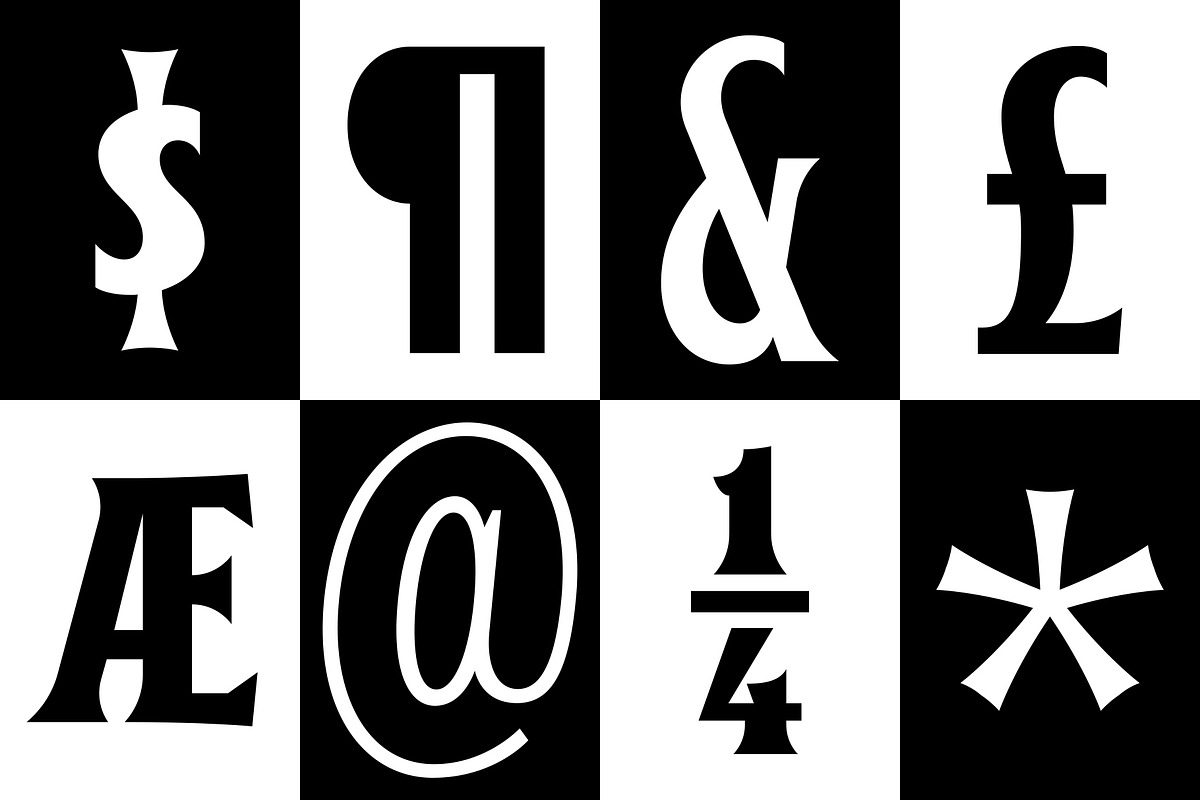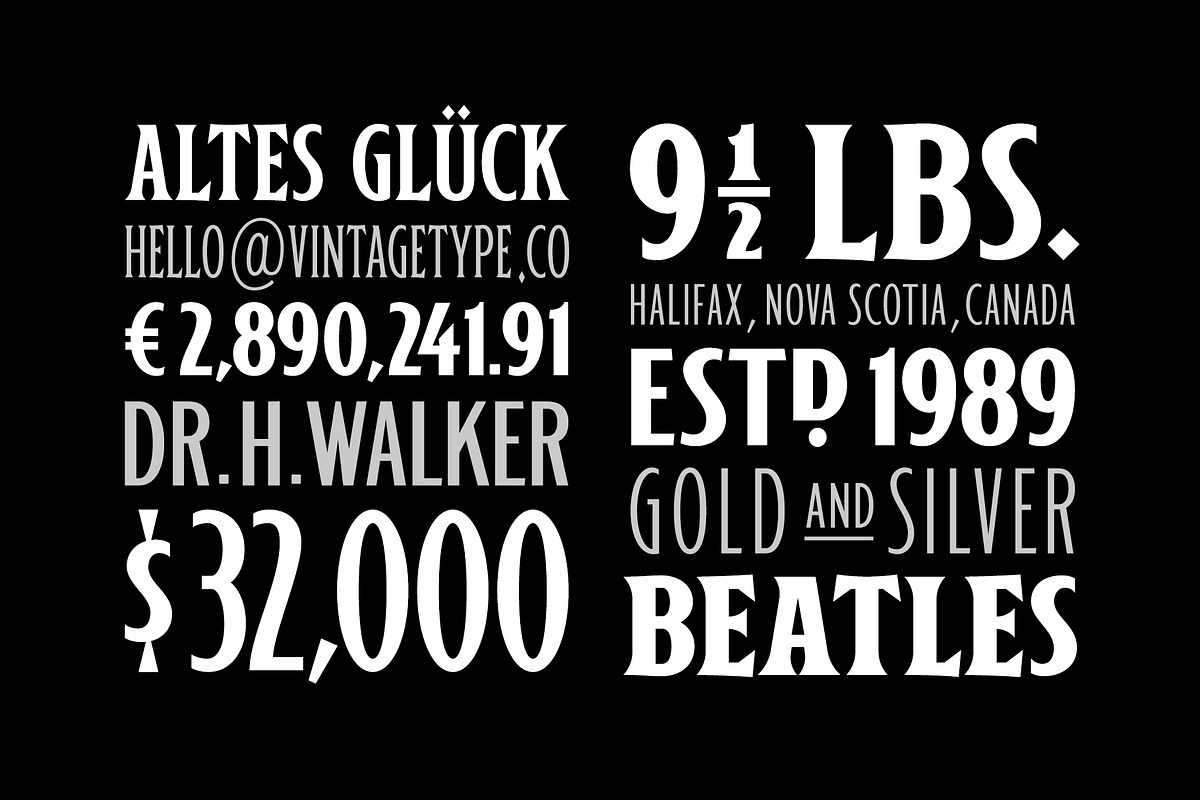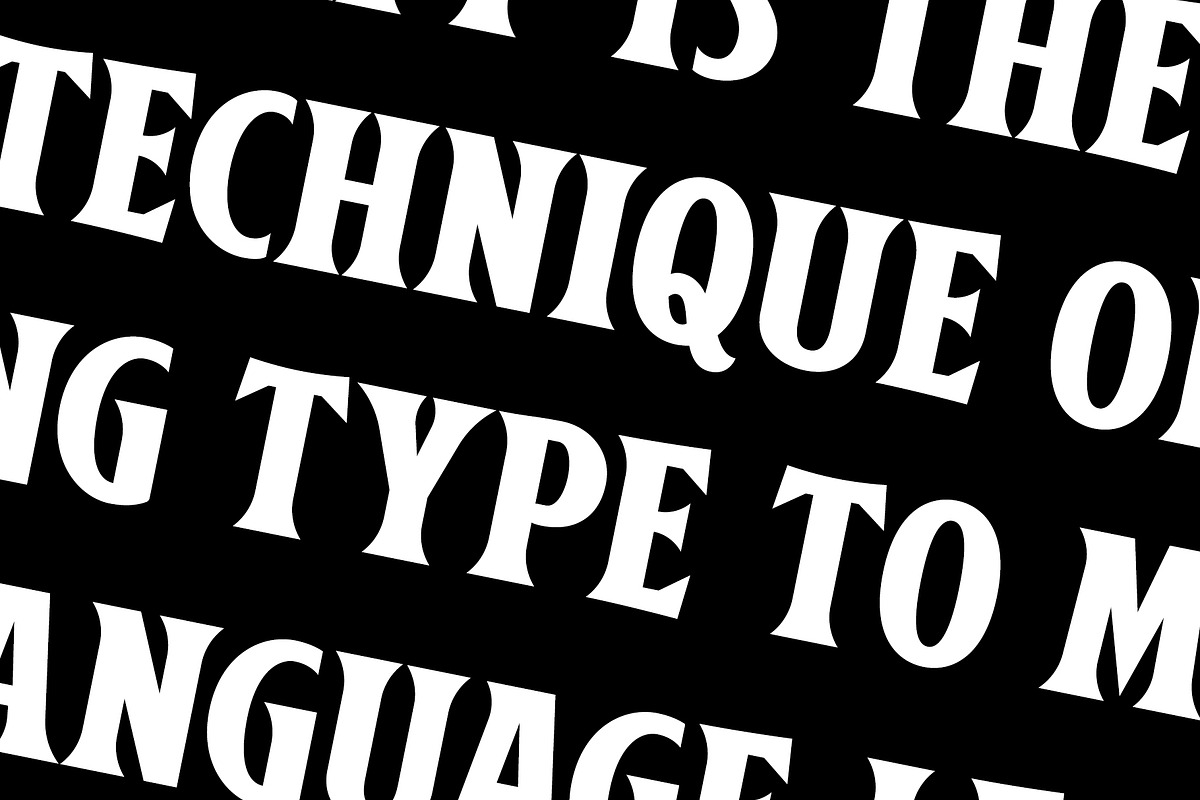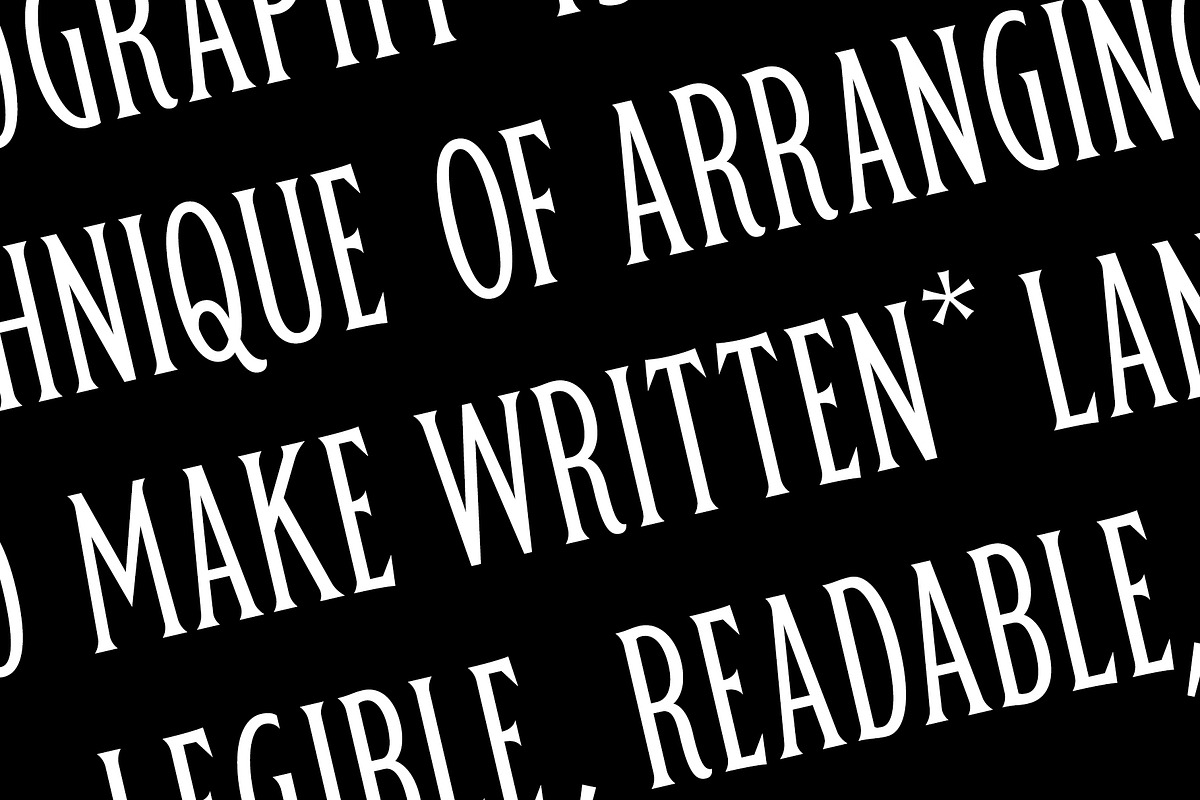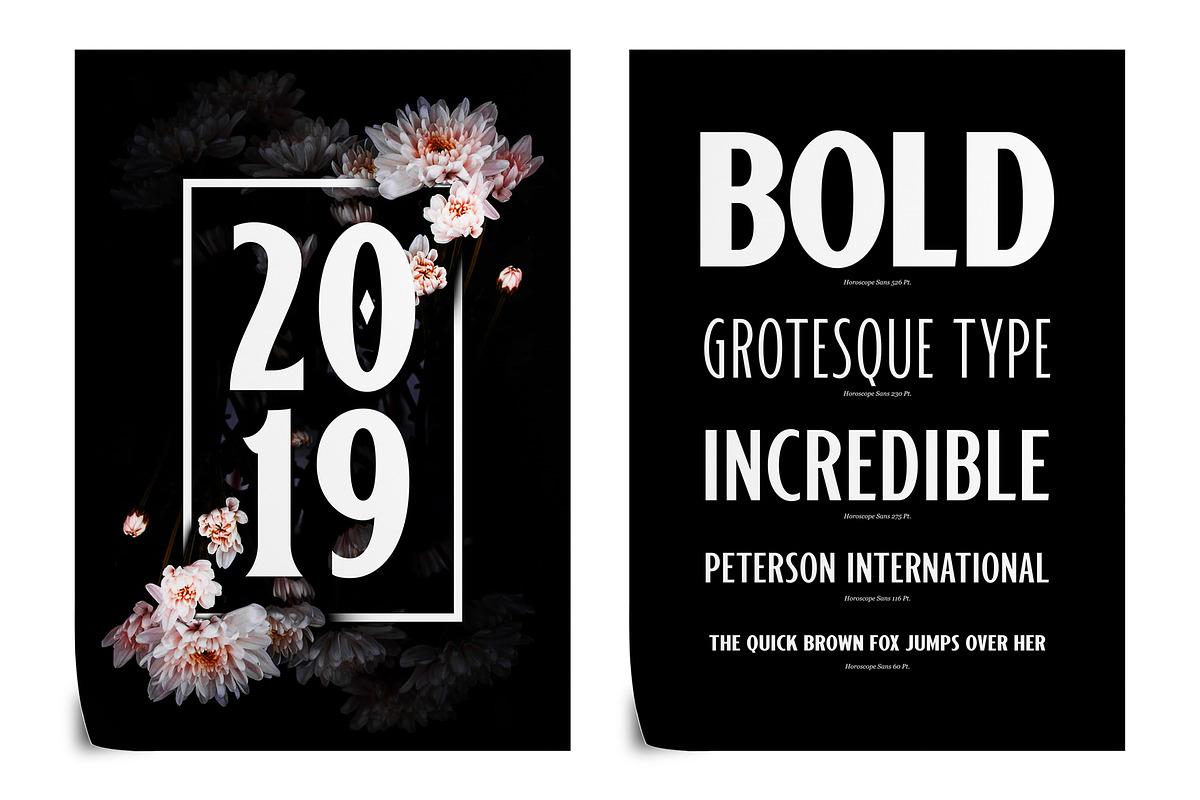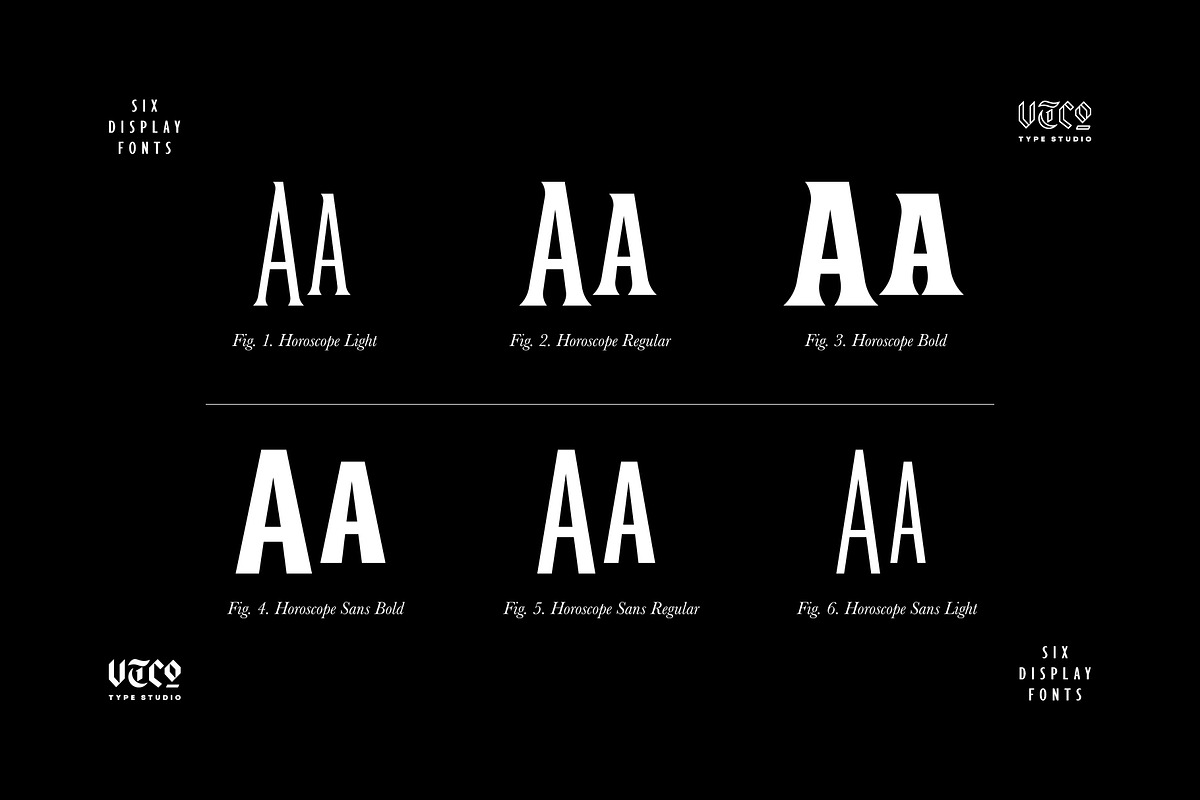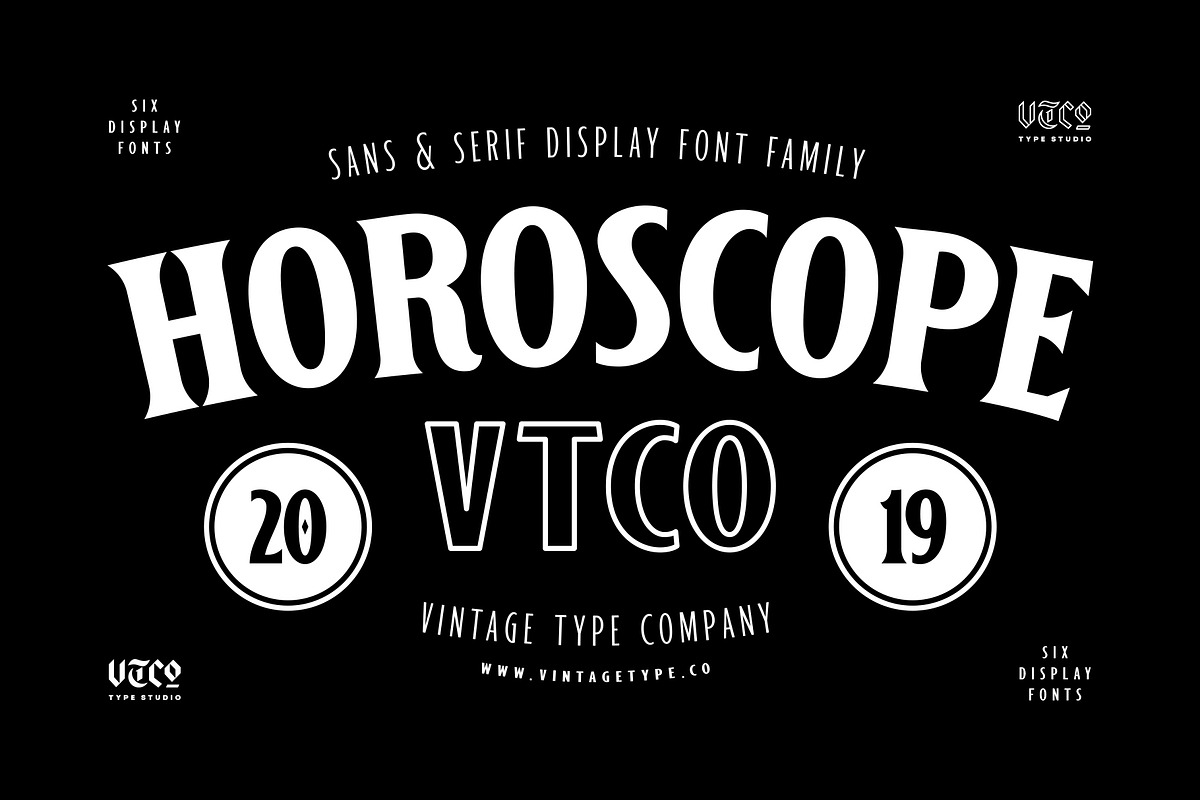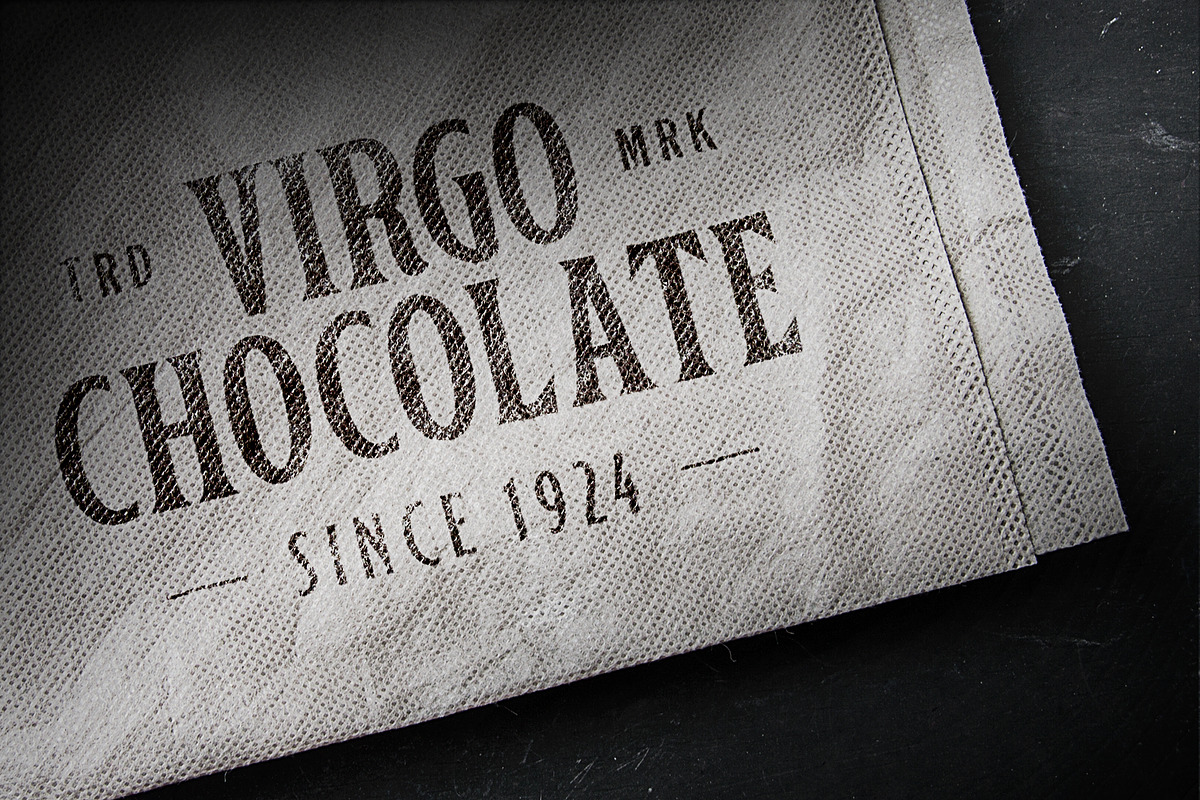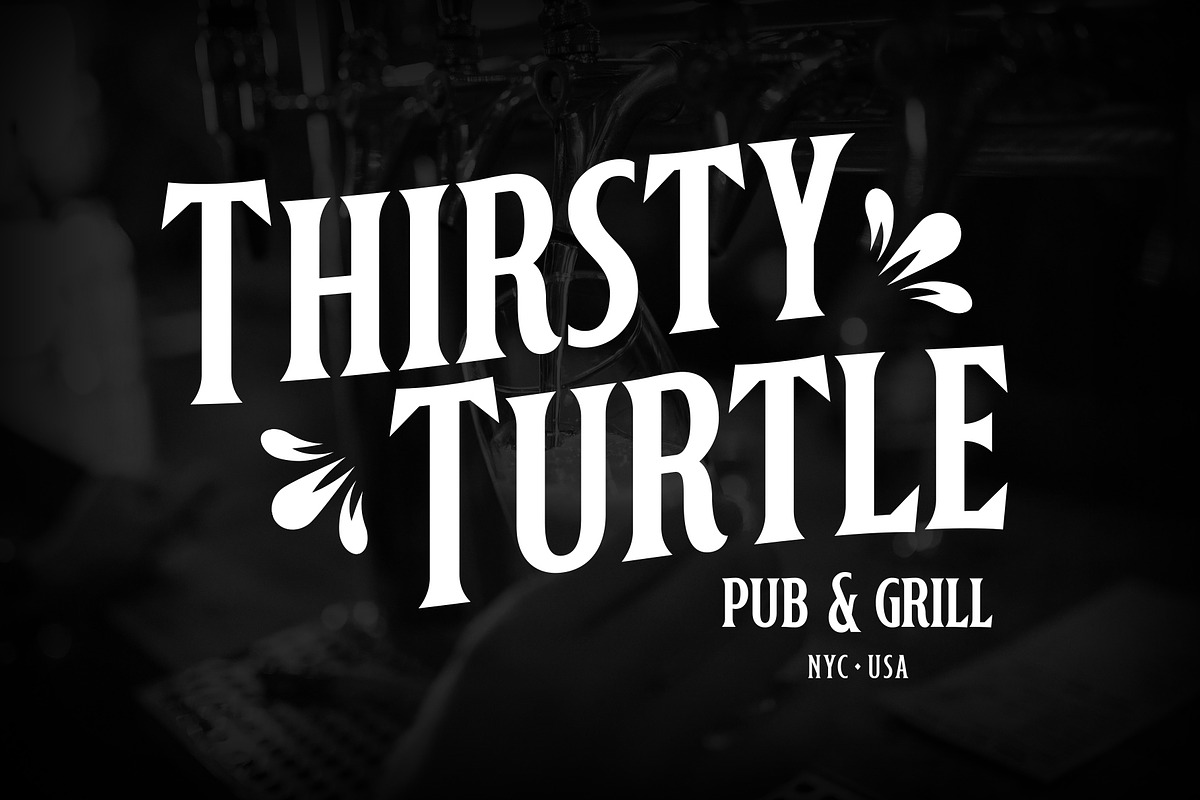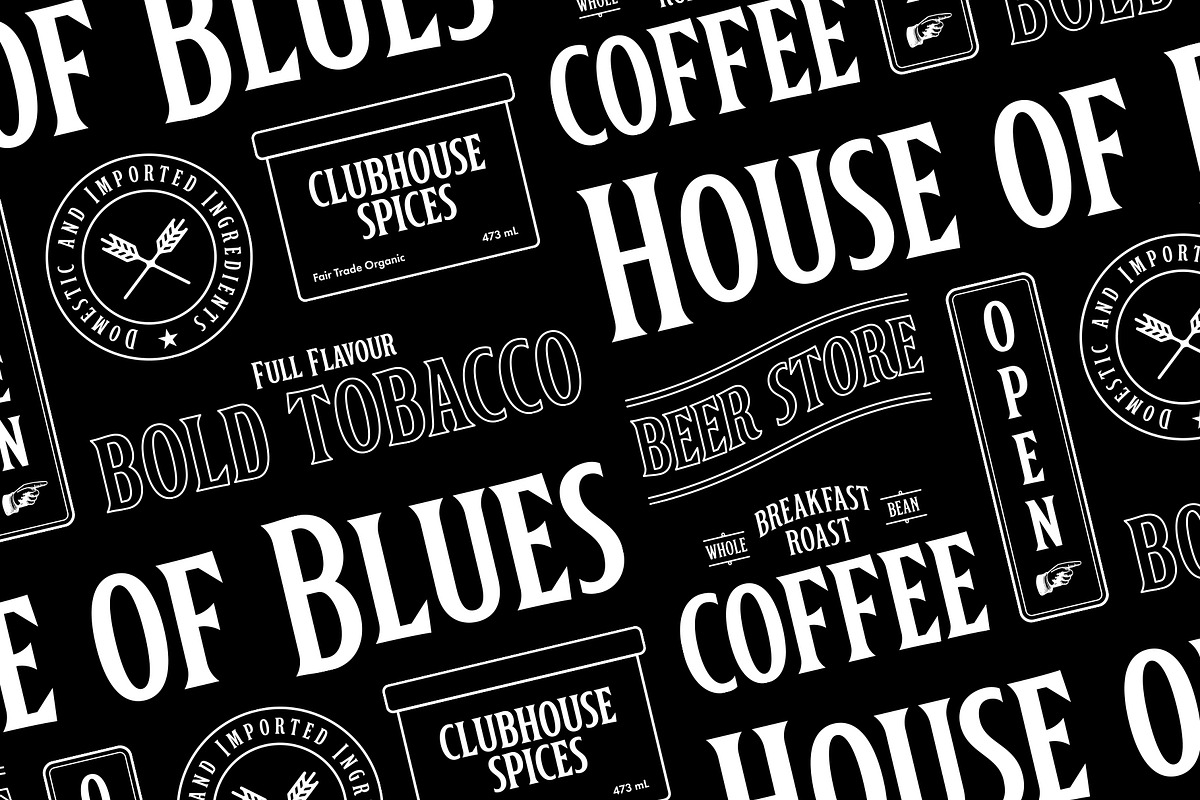
VTC Horoscope is a modern & minimalist rendition of a Victorian-esque style typeface.
This 19th century style of typography is typically characterized by exaggerated flourishes and ornamentation. A style still very popular today with artisanal signage, apothecary labels, legal documents, etc.
Much like some of the popular typefaces of that time, this font has a higher stroke contrast, smooth serifs, and a slightly extended x-height, however ditches the flourishes & fluff for a bit more weight & legibility.
Perfect for big bold headlines that spark curiosity and attention.
Horoscope has also been upgraded with 2 more serif weights, and 3 new sans serif styles. Now a family of 6 fonts in total, each with Adobe Latin 1 support, plus catchwords and alternate fractions.
*Activate catchwords by typing ‘cw’ + the word in all caps ( e.g. cwTHE ).